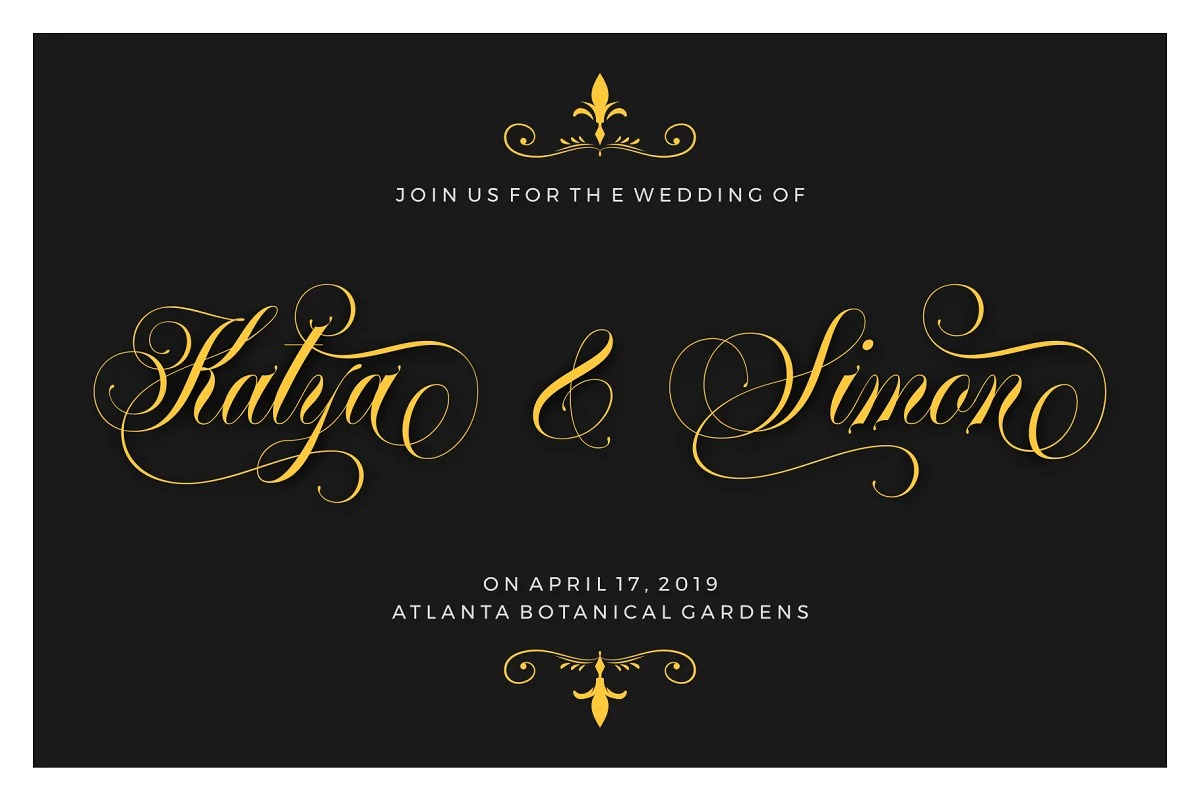
Banda Neira Font
Banda Neira Calligraphy Font
This is a romantic and sweet calligraphy typeface created by RedyStudio with characters that dance along the baseline. There are many alternate glyphs in Banda Neira, so you can make it looks cool on each and every word! Pairing ornate scripts with bold use of negative space, the Banda Neira Script collection is inspired by the movements formed by calligraphy. Its outline is influenced by handwriting, while its intricate design lends itself to an array of projects. The decorative style and sophistication of this collection will add sophistication to any design. Let one and another designer look amazing with it!